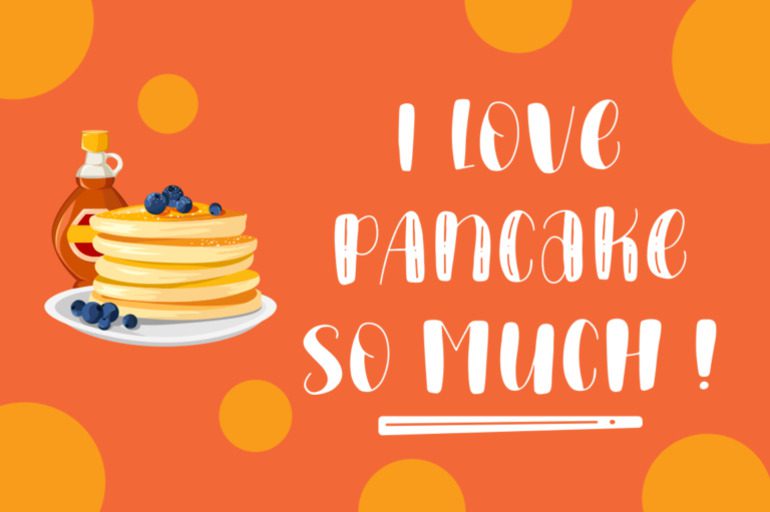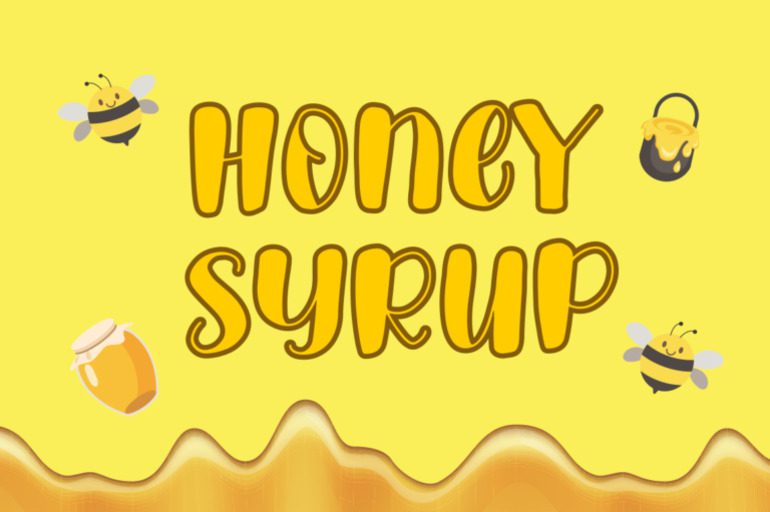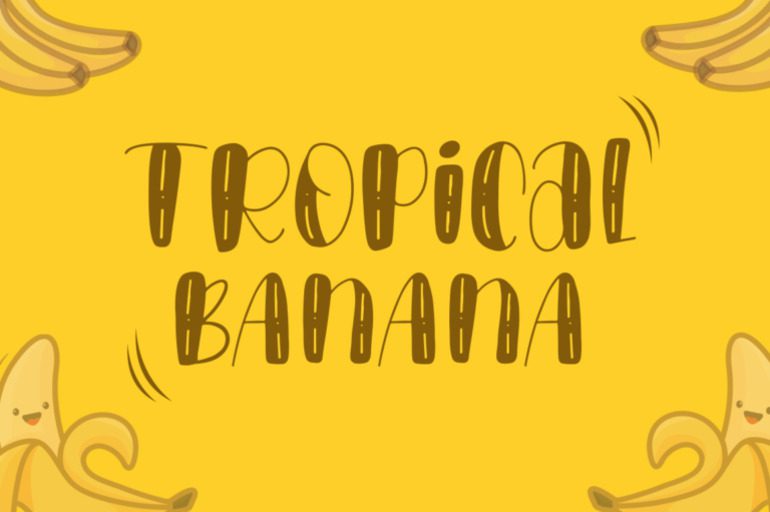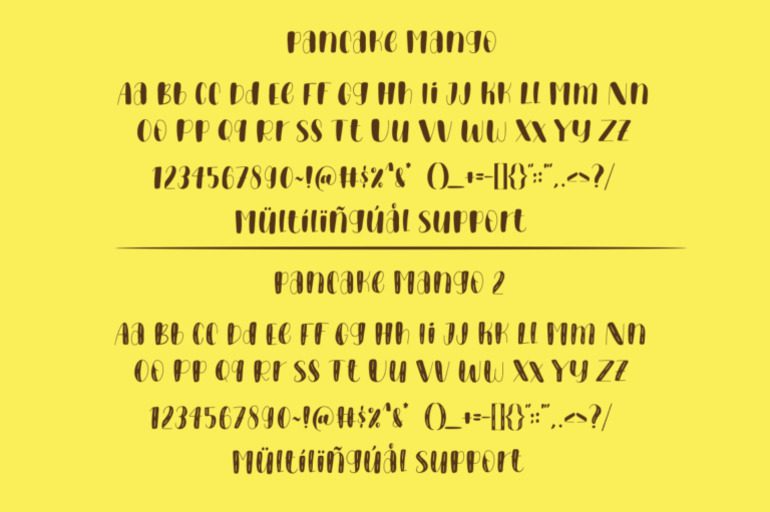
Pancake Mango Font
Pancake Mango, a playful and cheerful font inspired by tropical vibes. With its bold, rounded letters and vibrant colors, this font is perfect for adding a touch of fun to your designs. Ideal for branding, packaging, and social media graphics.